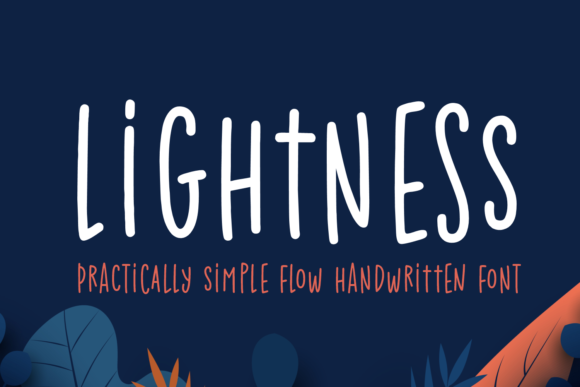
Lightness Font
Introducing Lightness Font: A Playful Script for Whimsical Creations
Journey into the realm of expressive typography with Lightness Font, a captivating script family that radiates charm and individuality. Created by the talented Situjuh, Lightness is not just a font; it's an artistic statement waiting to grace your designs. Its casual, carefree nature invites you to unleash your creativity and weave a tapestry of visual wonders.
At the heart of Lightness lies a symphony of slender strokes and playful curves that dance across the page, evoking a sense of whimsy and lightheartedness. This captivating script is designed to add a touch of magic to your projects, whether it's enchanting invitations, heartwarming greeting cards, or eye-catching social media posts.
With Lightness, you'll discover endless possibilities for expression. Craft whimsical logos that radiate personality, design captivating posters that ignite imaginations, or create digital art that captivates hearts. Its versatility knows no bounds, making it the perfect choice for designers, crafters, and anyone seeking to add a dash of charm to their creations.
Embrace the unique allure of Lightness Font and embark on a creative adventure where your imagination takes center stage. Let your designs shine with a captivating script that speaks volumes, leaving an unforgettable impression on your audience.